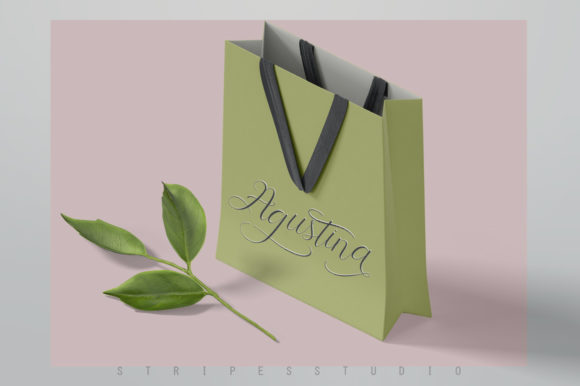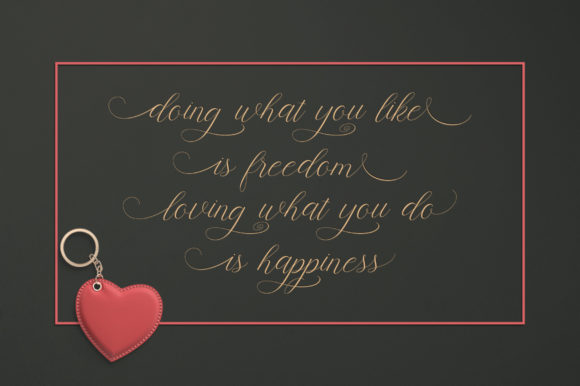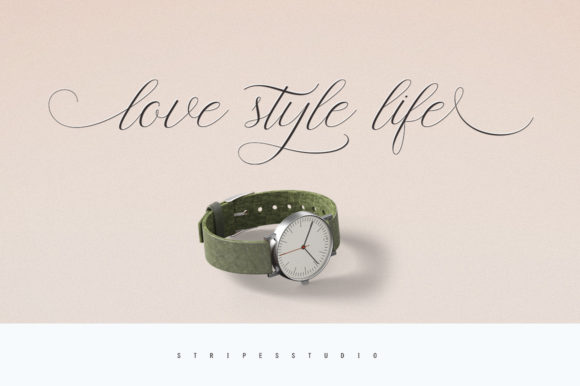
Introduction to Holland Script Font
The Holland is a modern handwritten script.
It’s easy to use and has a great readability Perfect for branding designs.